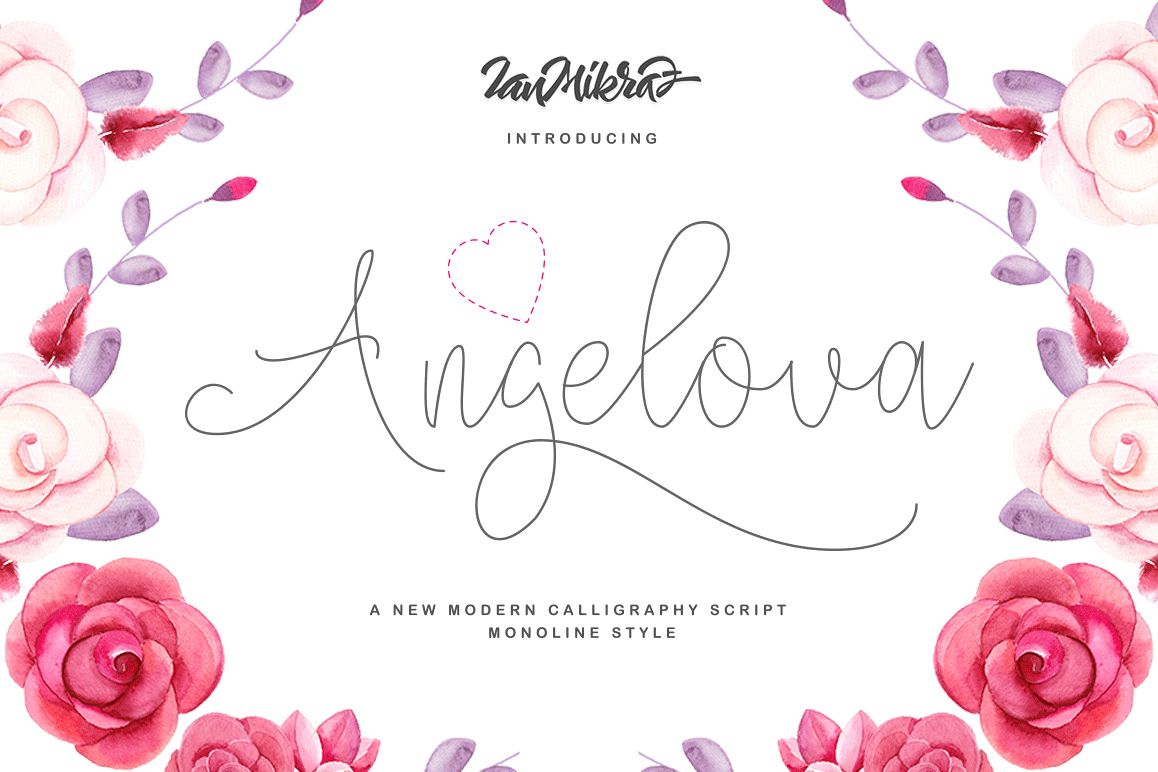
Angelova Monoline Script
Introducing Angelova Monoline Script
Angelova Monoline Script is a new modern calligraphy Script fonts, combines from copperplate to contemporary typeface, classic and elegant touch.Angelova Monoline Script features 327 glyphs and 137 alternate character contain with opentype features. Stylistic alternates, Swash Alternates, Ligature and more.
Angelova Monoline Script is suitable for Apparel Brand, any greeting cards, Painting design style, or any design that needs natural and personal touch. Mix and match the alternate characters to add an attractive message to your design.
Features of Angelova Monoline Script is;
• Swash Alternates
• Standard Ligatures
• Stylistic Sets